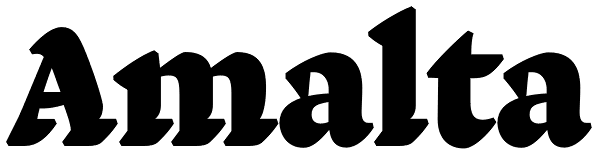
Amalta
Amalta is a Display typeface with calligraphic background. It inherits weight and letter constructions from the original brush lettering. Amalta's Latin and Cyrillic sets were designed simultaneously with an equal attention to details and overall...